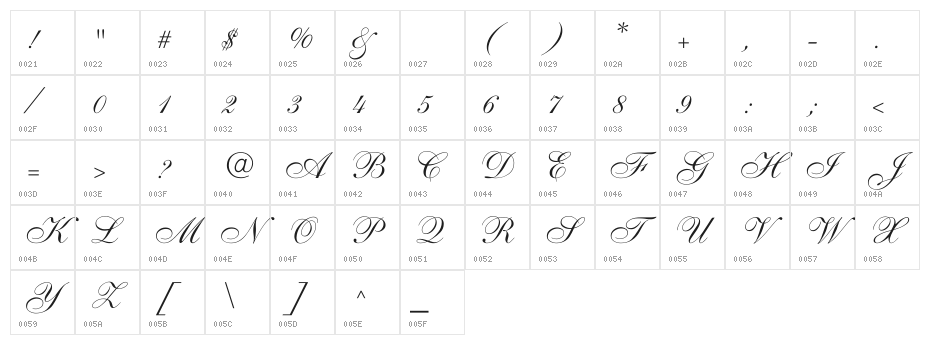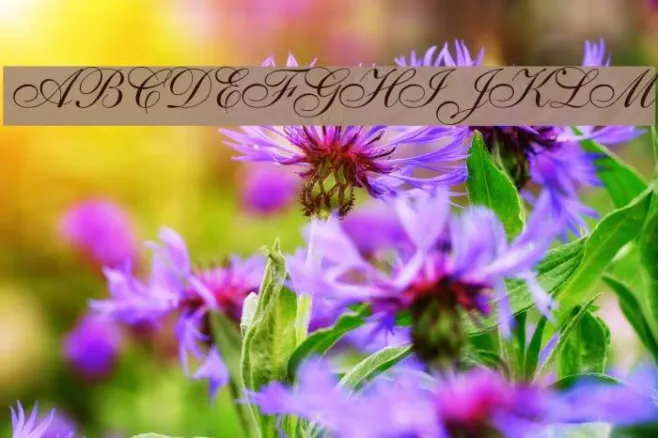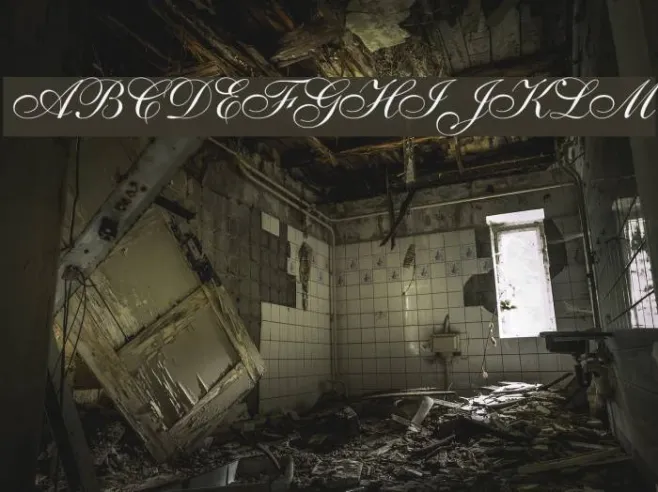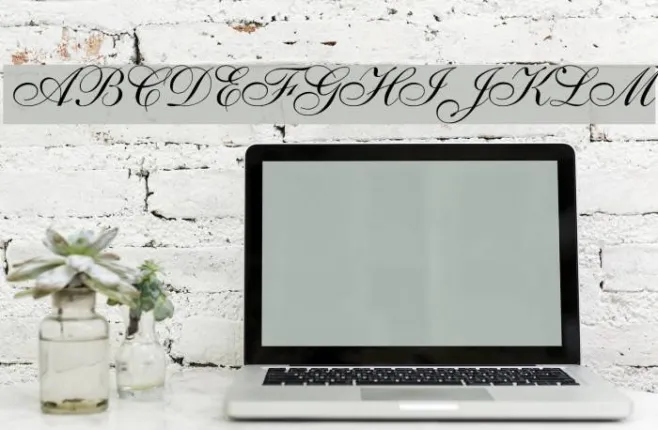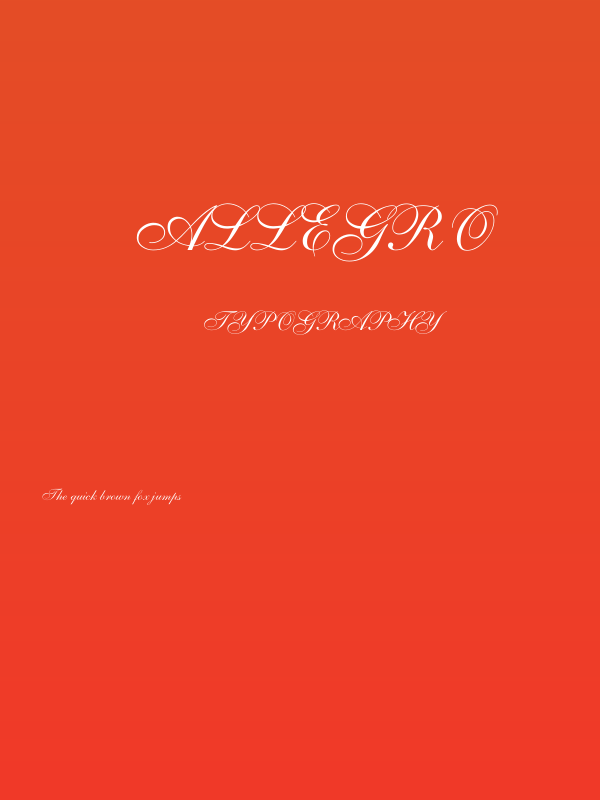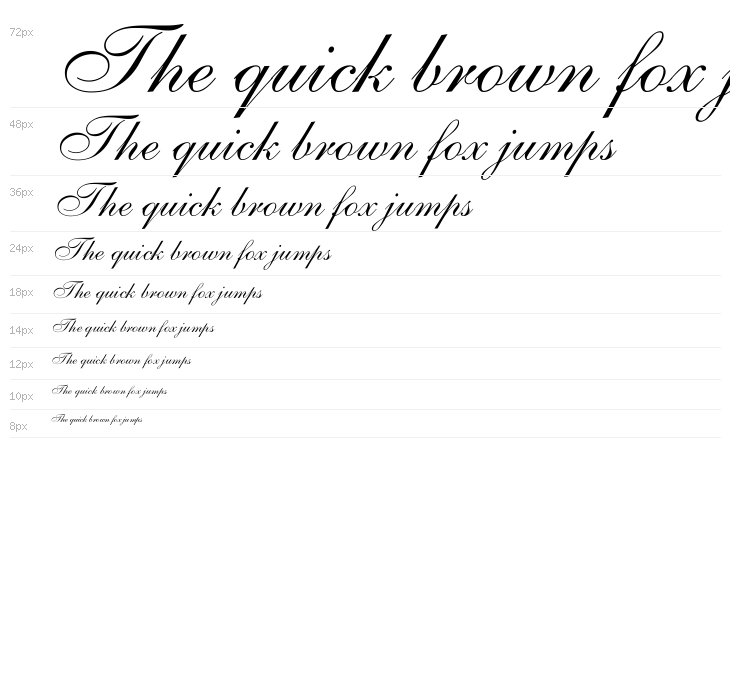
Allegro Font
Allegro Description
This elegant script font features flowing, interconnected letters with a classic and sophisticated appearance. The uppercase letters are ornate and decorative, with intricate loops and flourishes that add a touch of formality and grace. The lowercase letters maintain a smooth, cursive style that complements the uppercase, making it ideal for formal invitations and elegant branding. The numerals are consistent with the script style, offering a cohesive look across all characters. Special characters are thoughtfully designed to match the overall aesthetic, ensuring versatility in various design applications.
| Use Case | Headlines, Invitations, Branding |
| Proposed Projects | Ideal for wedding invitations, elegant branding, formal event programs, and luxury product packaging. |